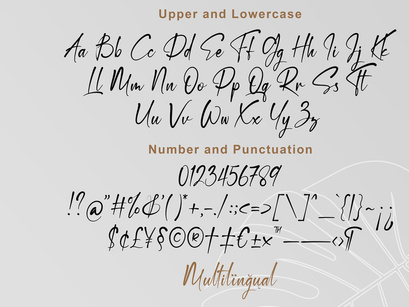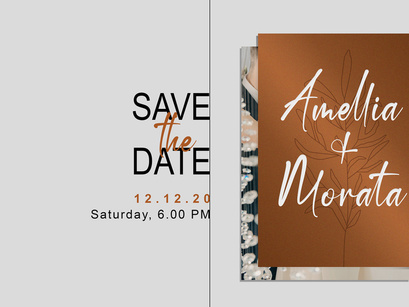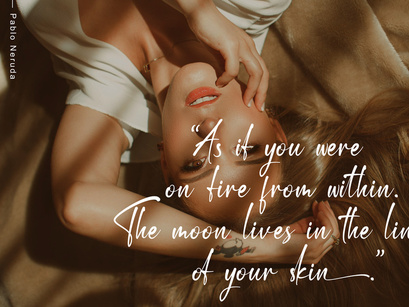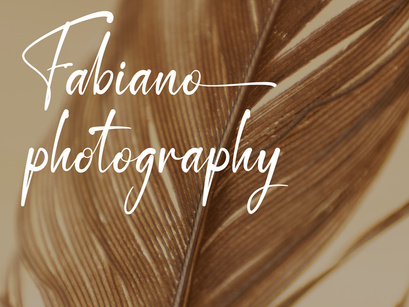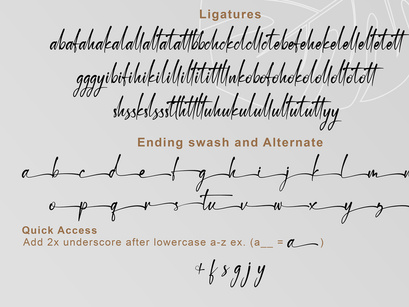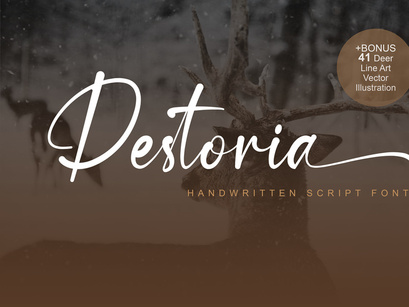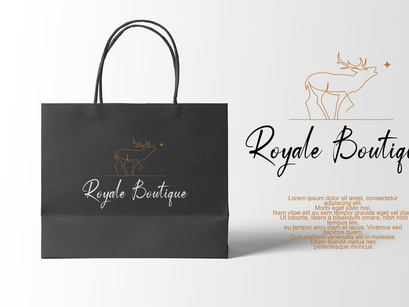
Destoria is a beautiful handwritten script font. It’s the perfect font for wedding invitations, stationery, photography, social media posts, product packaging, greeting cards, and much more!
Ligatures
Swash
Uppercase and Lowercase letters
Numbering and Punctuations
Also Multilingual Support